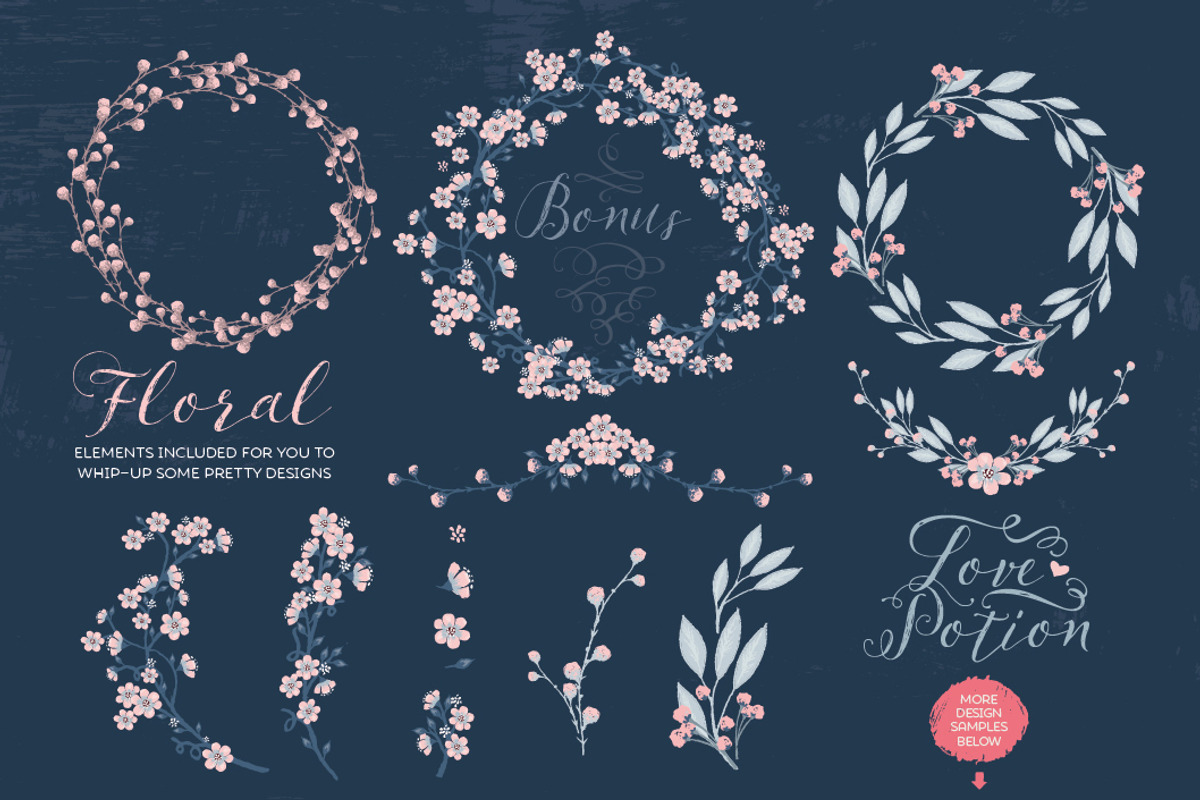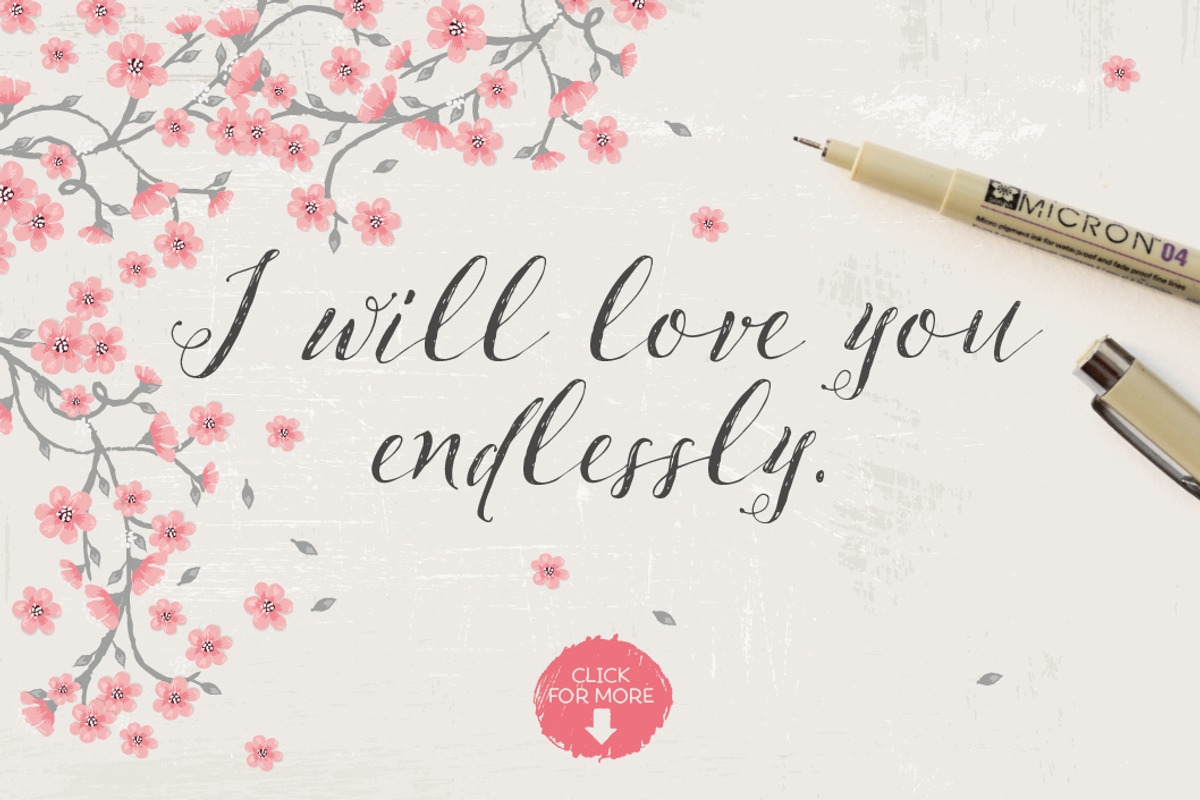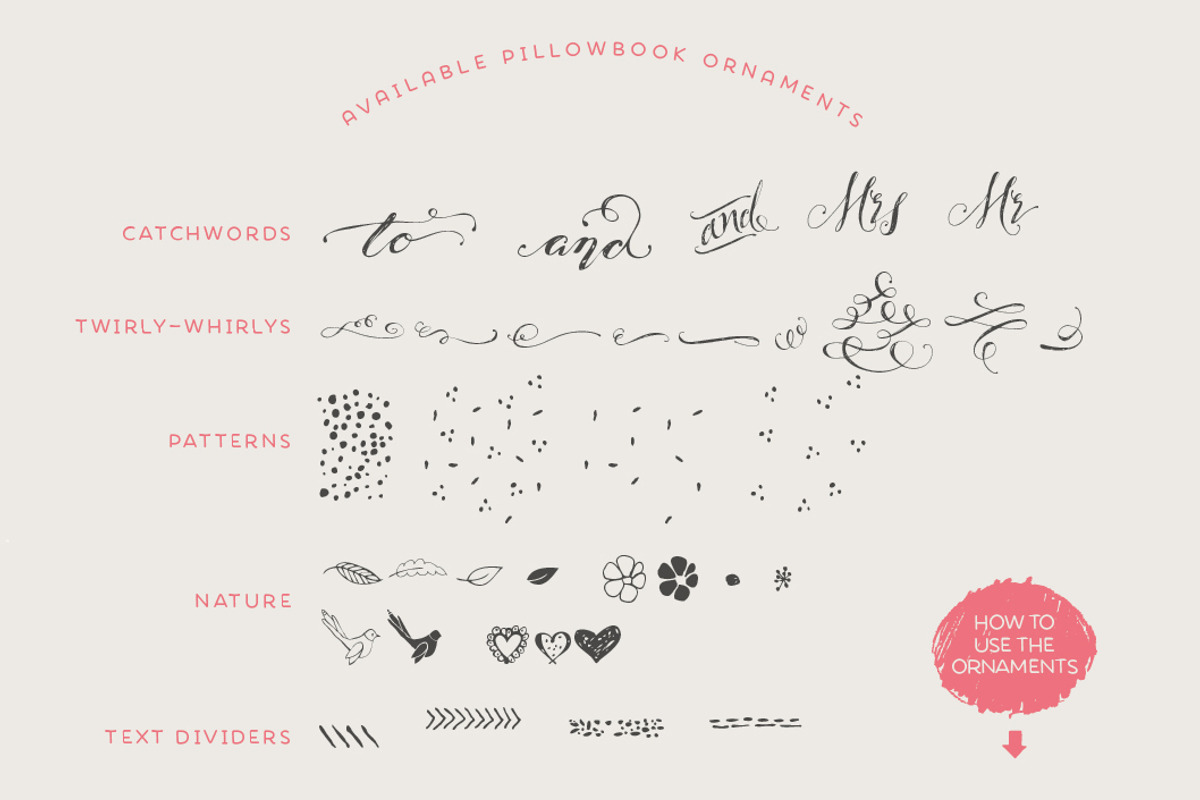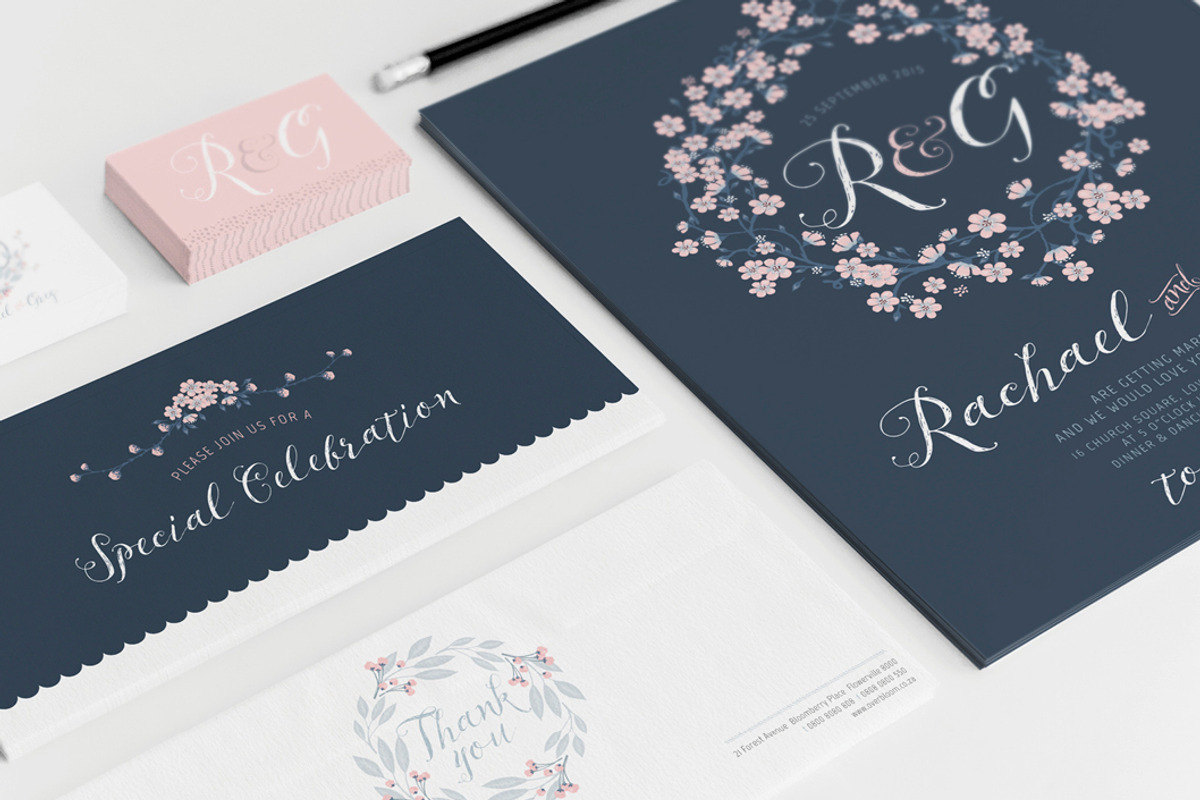
Pillowbook typeface + Extras!
Pillowbook typeface + Extras! by Lisa Glanz is a font selected for branding, posters, packaging, typography.
- Pillowbook is perfect for:
- Wedding stationery
- Monogram designs
- Effortless brand identity
Why Pillowbook typeface + Extras! is worth a look
Pillowbook typeface + Extras! by Lisa Glanz fits naturally into Branding, posters, packaging, typography.